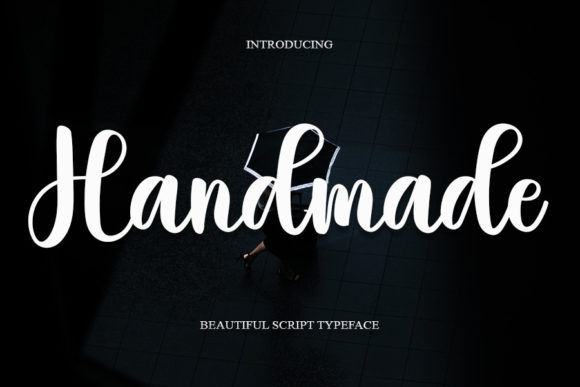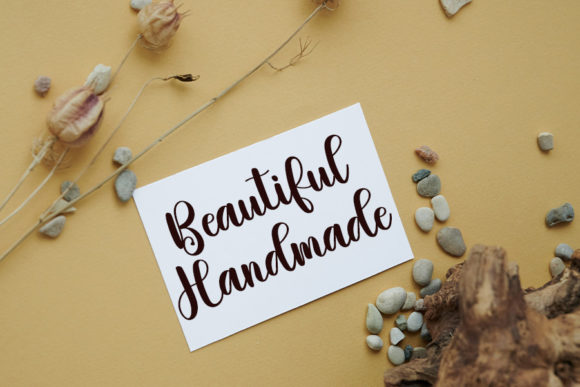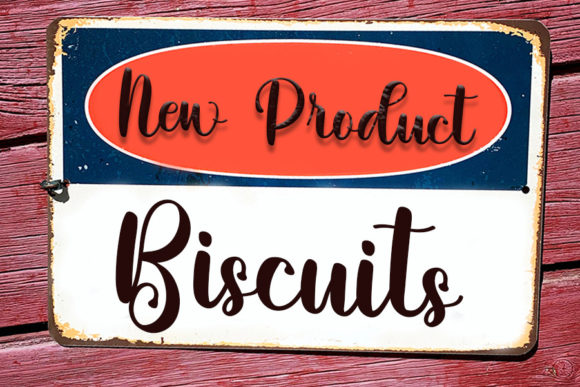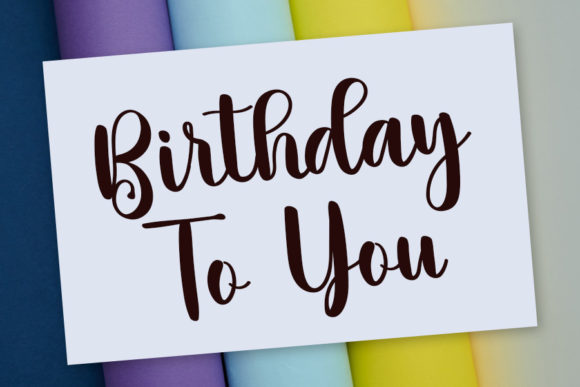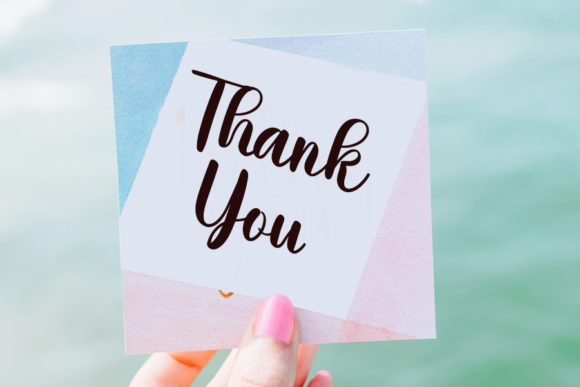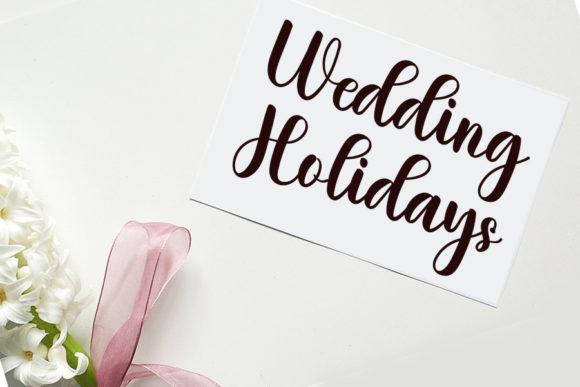
HandmadeĀ is a chic, refined script font that emanates sophistication and elegance. Its stylish alternates and ligatures make this font the perfect match for any project.